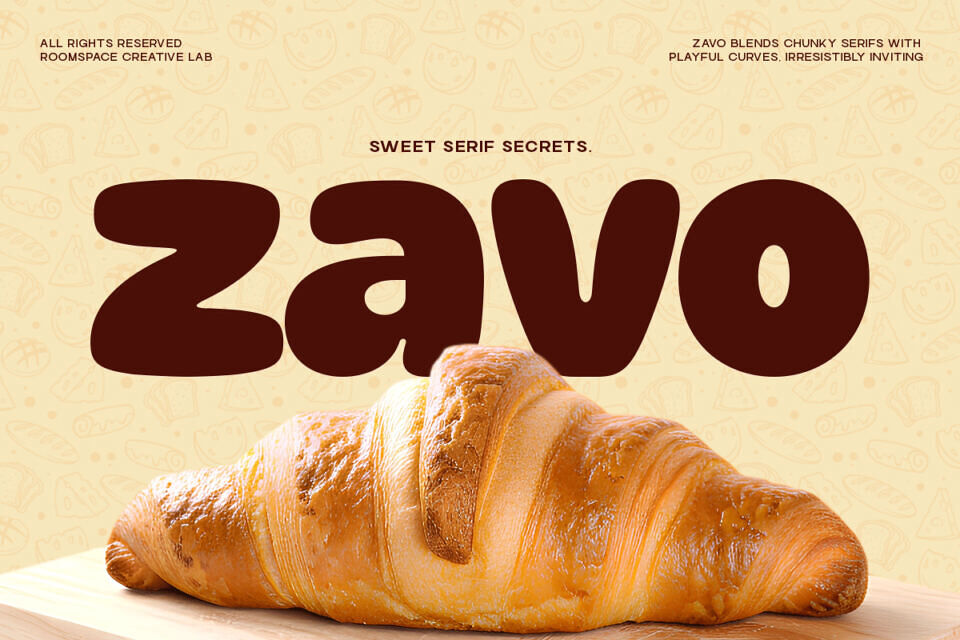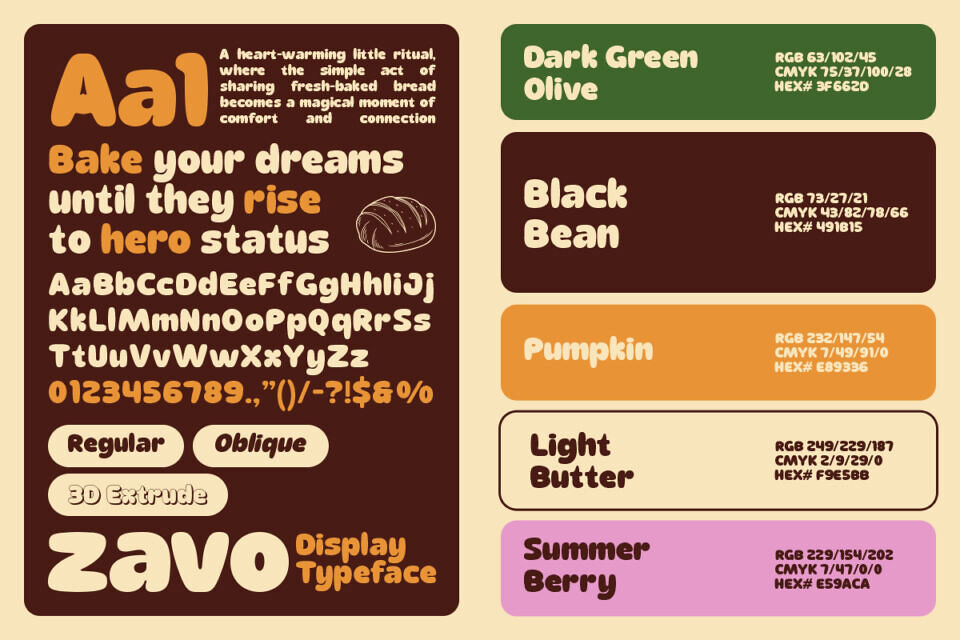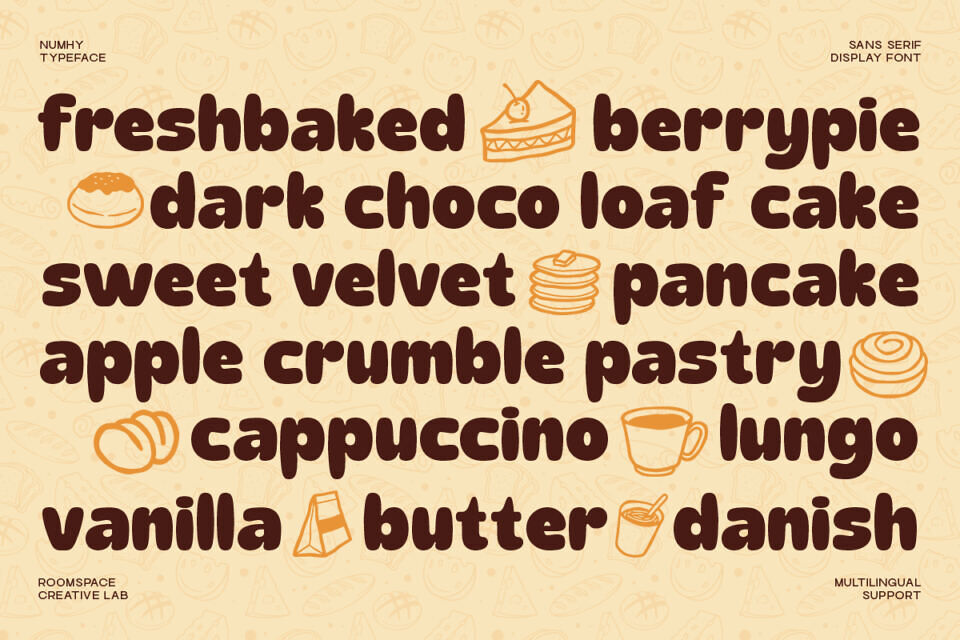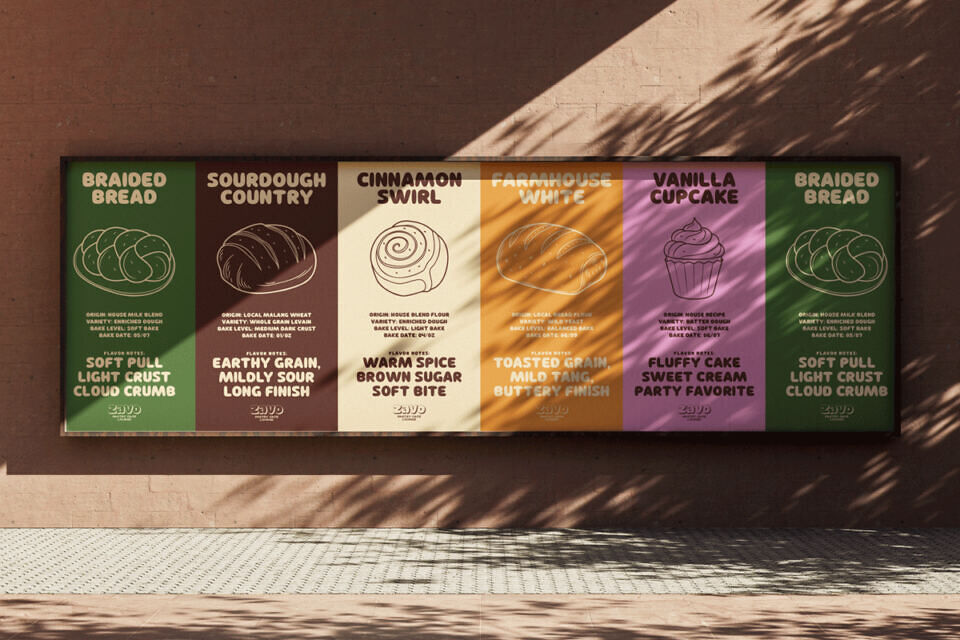
Playful, bold, and friendly a chunky sans-serif font built with soft curves and high visual impact. Zavo is designed to feel warm, fun, and approachable, combining thick strokes with rounded geometry to create a loud yet lovable personality.
The tone is cheerful, expressive, and modern, perfect for brands that want to feel welcoming, energetic, and memorable. Zavo brings big letter energy without sharp edges, making it ideal for food brands, cafés, kids products, packaging, and playful digital identities.